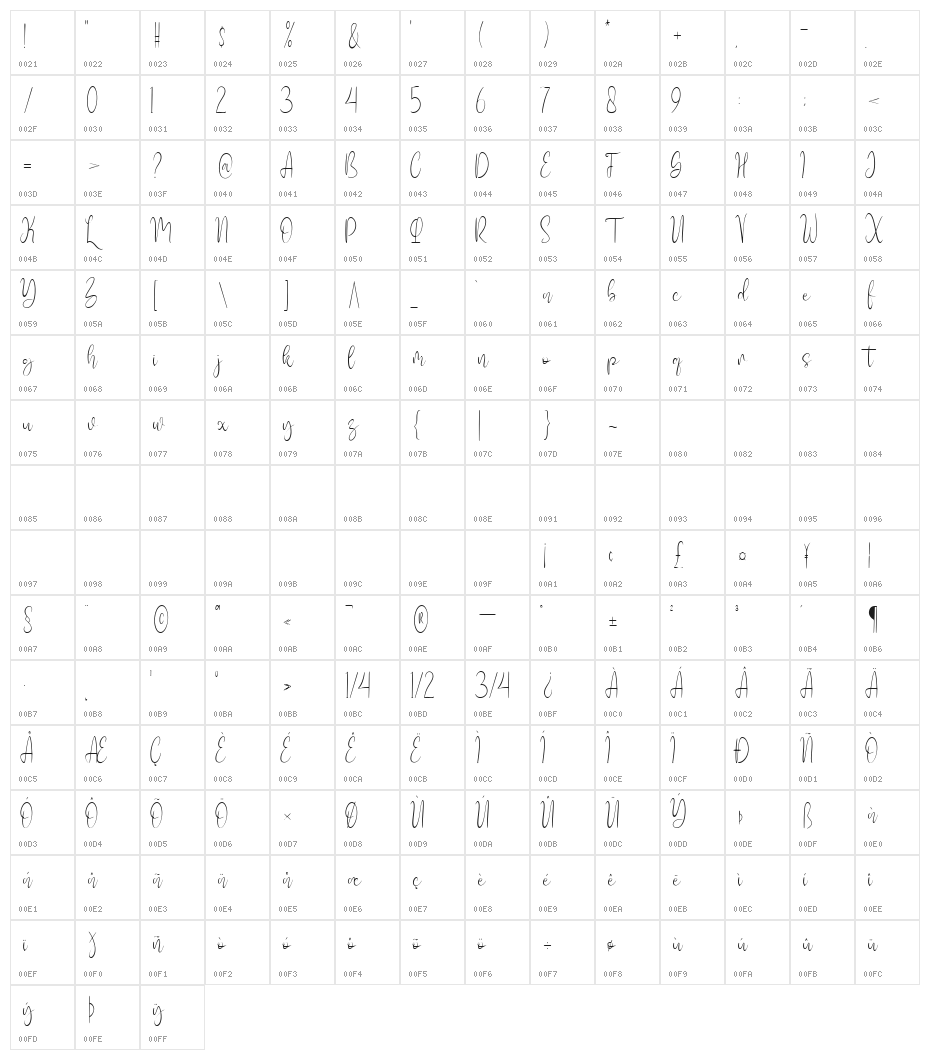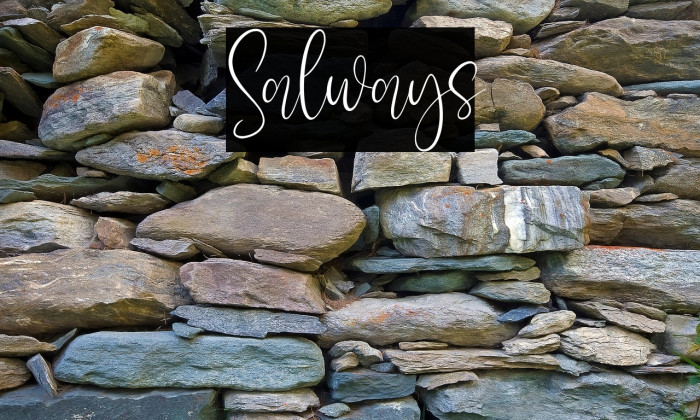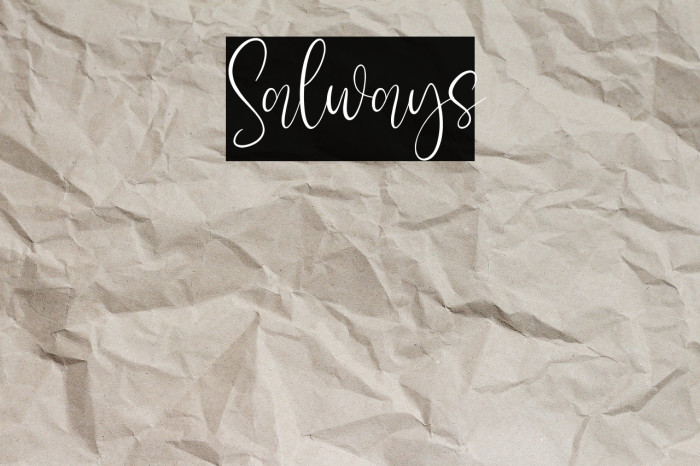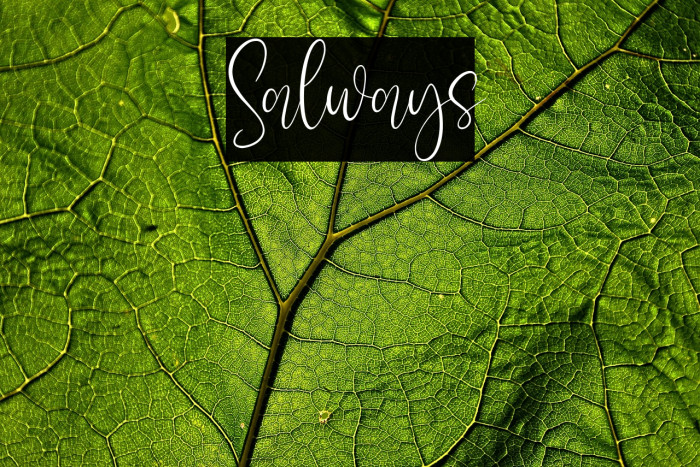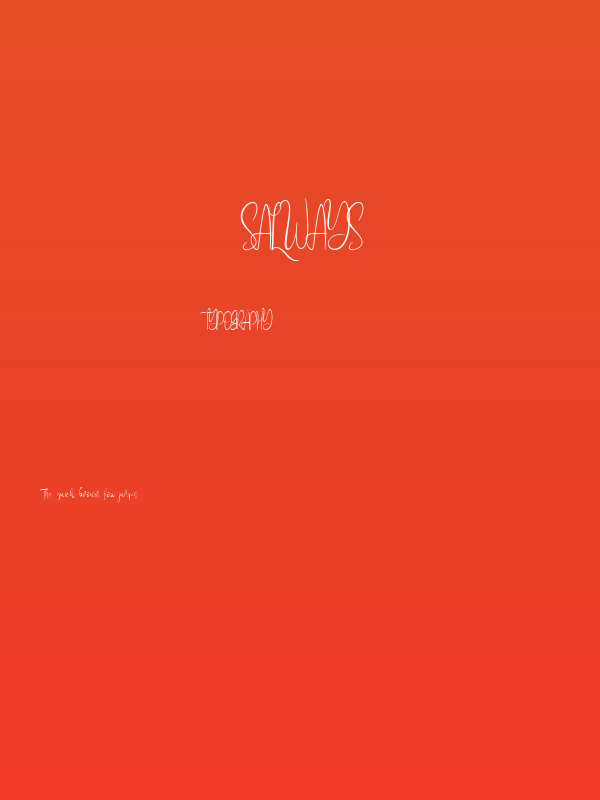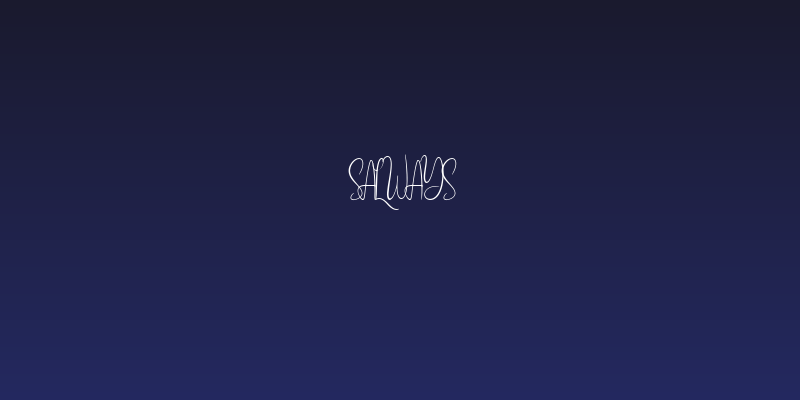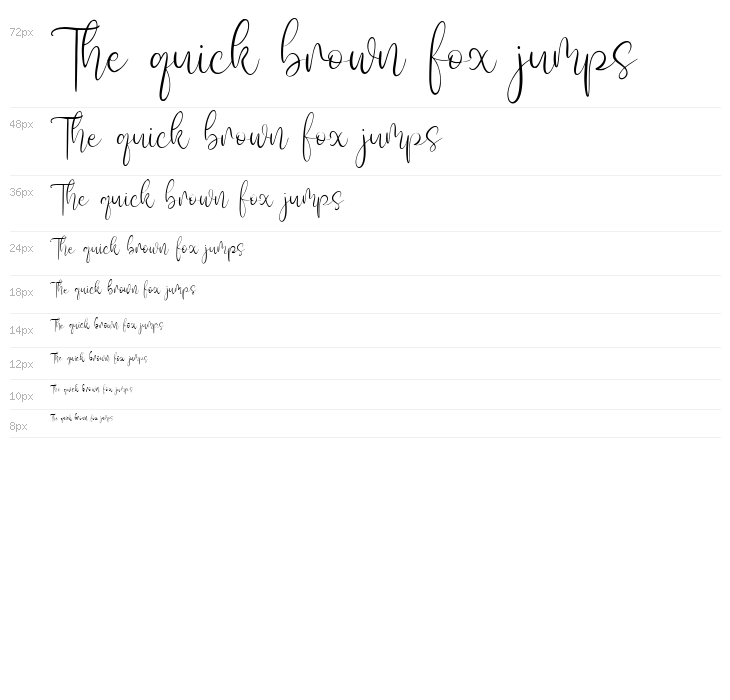
Salways Font
Salways Description
This font features an elegant, flowing script style with a handwritten appearance. The letters are interconnected, creating a seamless and fluid look. The uppercase letters are tall and slightly exaggerated, adding a touch of sophistication. The lowercase letters maintain a consistent flow, with loops and curves that enhance the handwritten feel. The numbers and special characters are designed to match the overall style, ensuring a cohesive look across all elements. This font is perfect for projects that require a personal, artistic touch.
| Proposed Projects | Ideal for wedding invitations, greeting cards, personal branding, and artistic projects. |